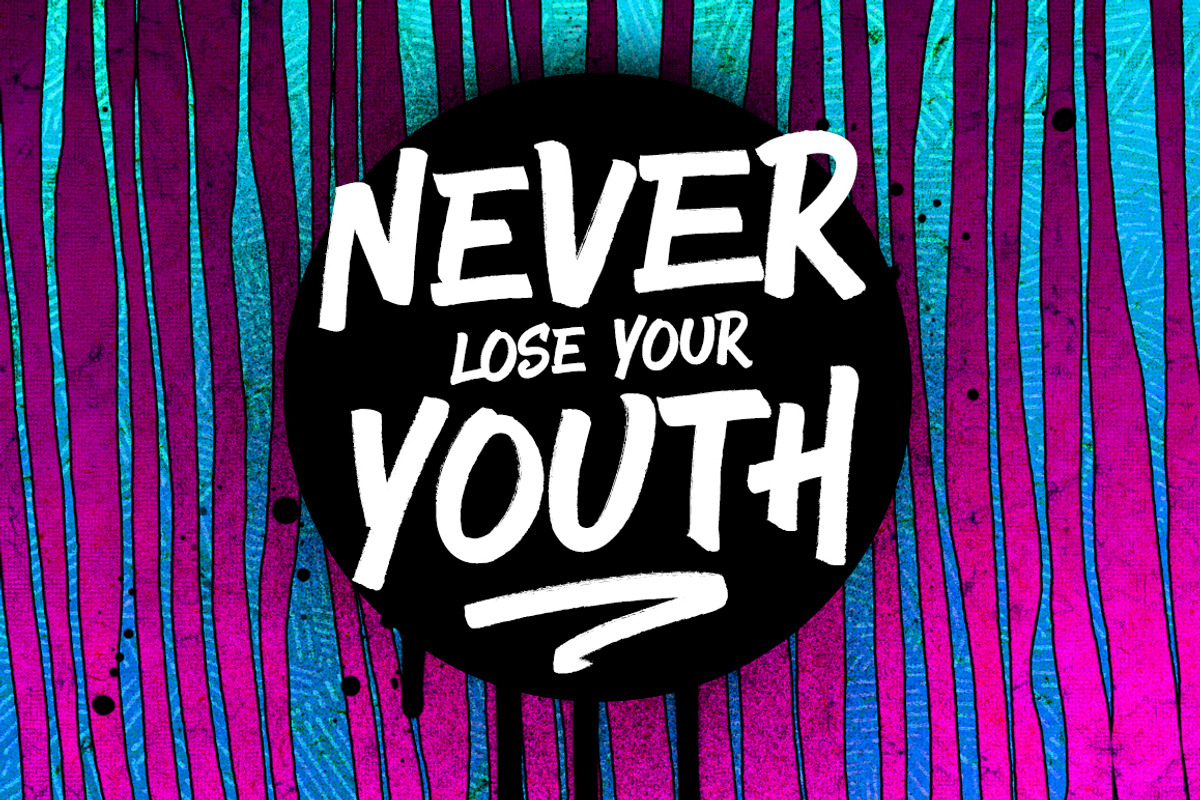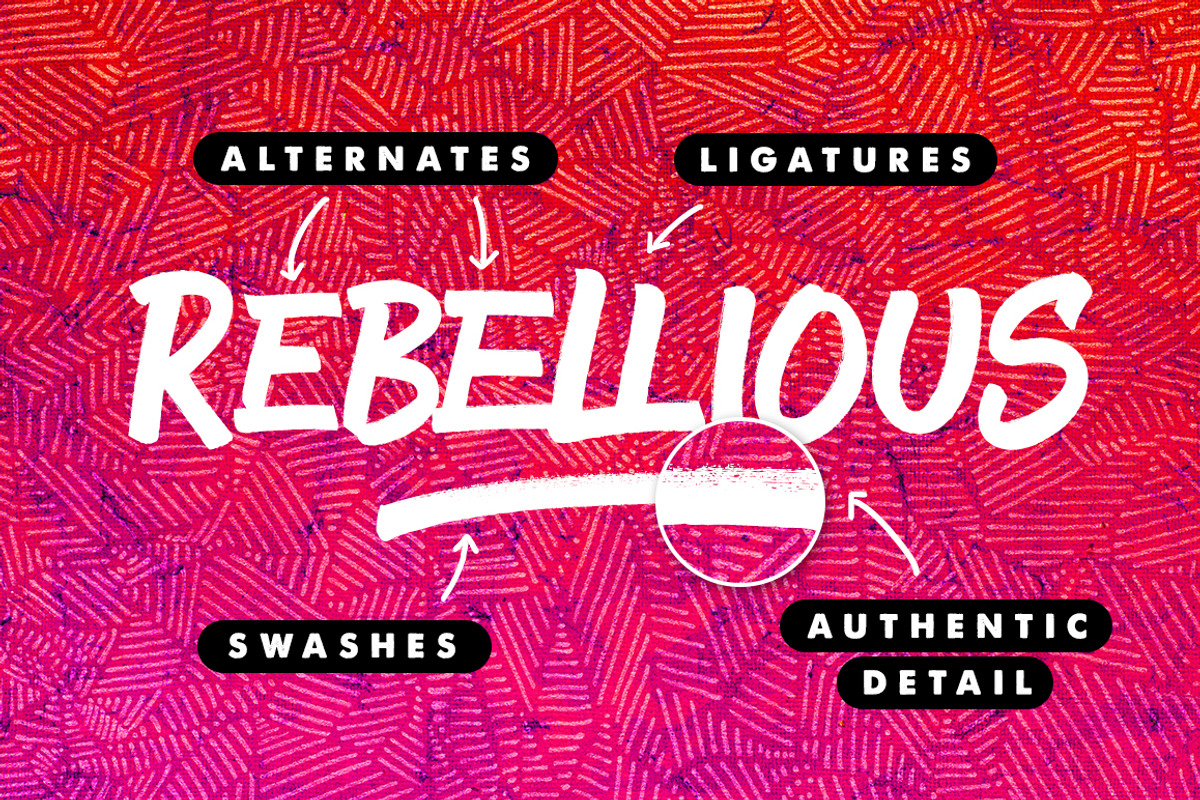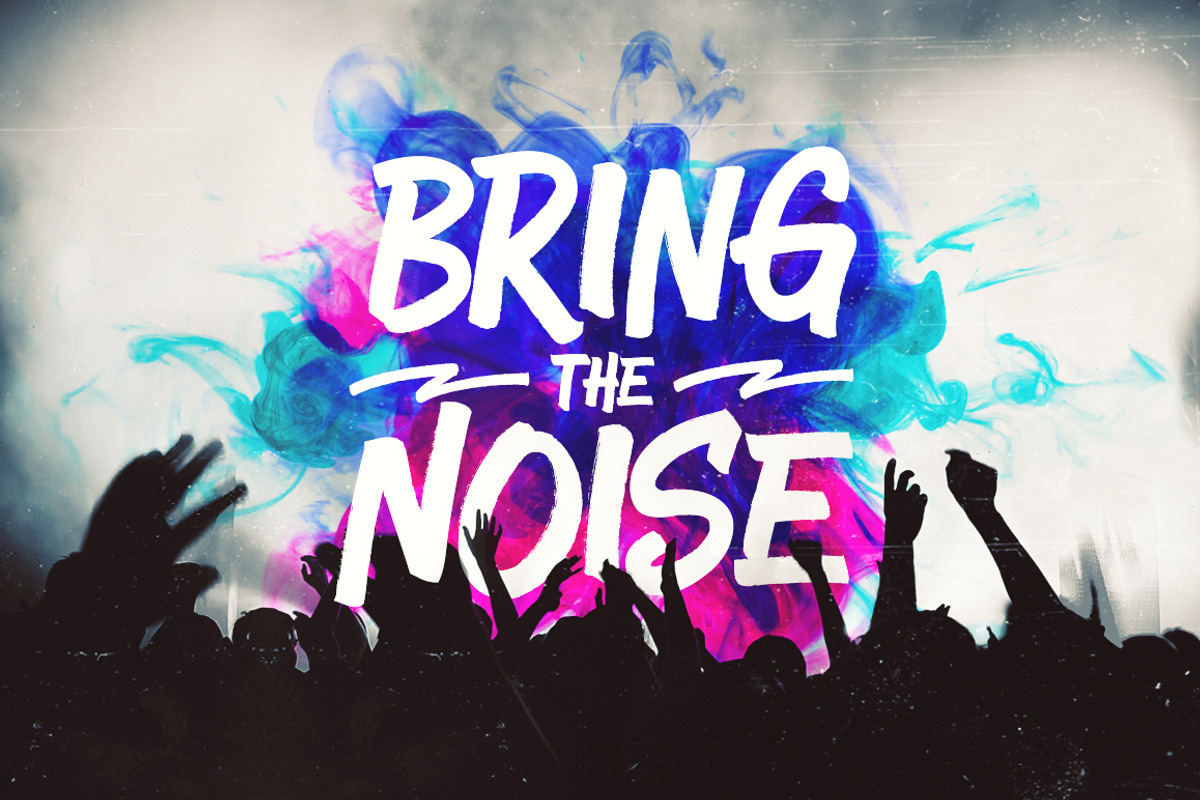
Sweet Sucker Punch Font
Sweet Sucker Punch is a loud, proud and infectiously fun marker pen font which will shout your message from the rooftops.
The great thing about this font is that it comes with a complete set of alternate characters, accessible simply by switching between upper and lower case glyphs within the font. This means you can make your text look completely custom made by mixing up the regular and alternate characters to get the best outcome. Another cool feature is the 4 bonus swashes, just type out the characters { } [ ] on your keyboard for quick and easy access to the swashes. These are the perfect finishing touch and add even more eye-catching appeal to your text.
The font is hand-made so it has some really authentic, rough brushed edges – perfect for logos, merchandise, product packaging, quotes, comic book text and loud headings. It also includes multilingual support, and has a few discretionary ligatures included to help perfect the look of some of those slightly more awkward letter-pairings. Use of these requires software with a Glyphs panel such as Adobe Illustrator or Adobe Photoshop CC.